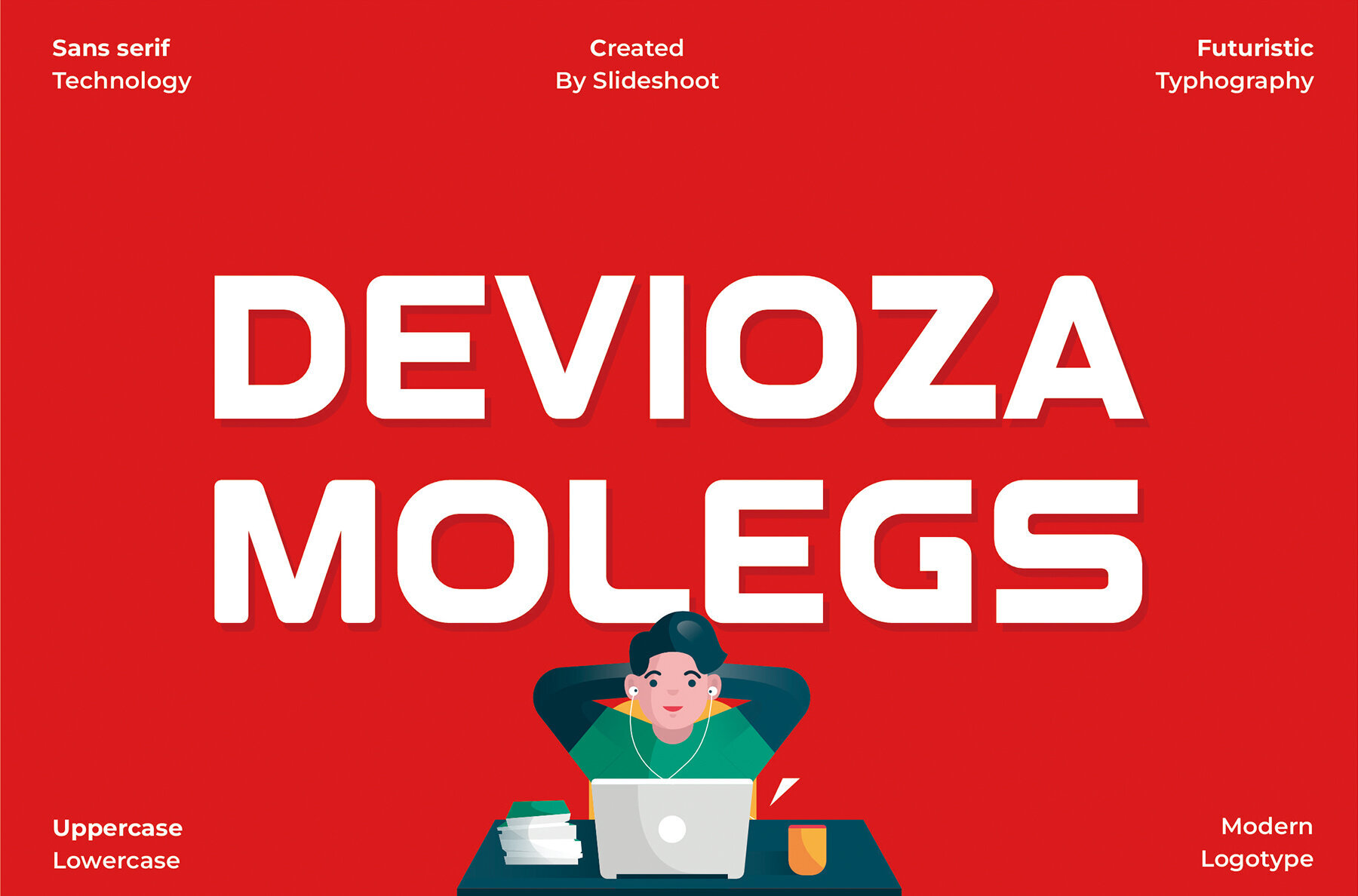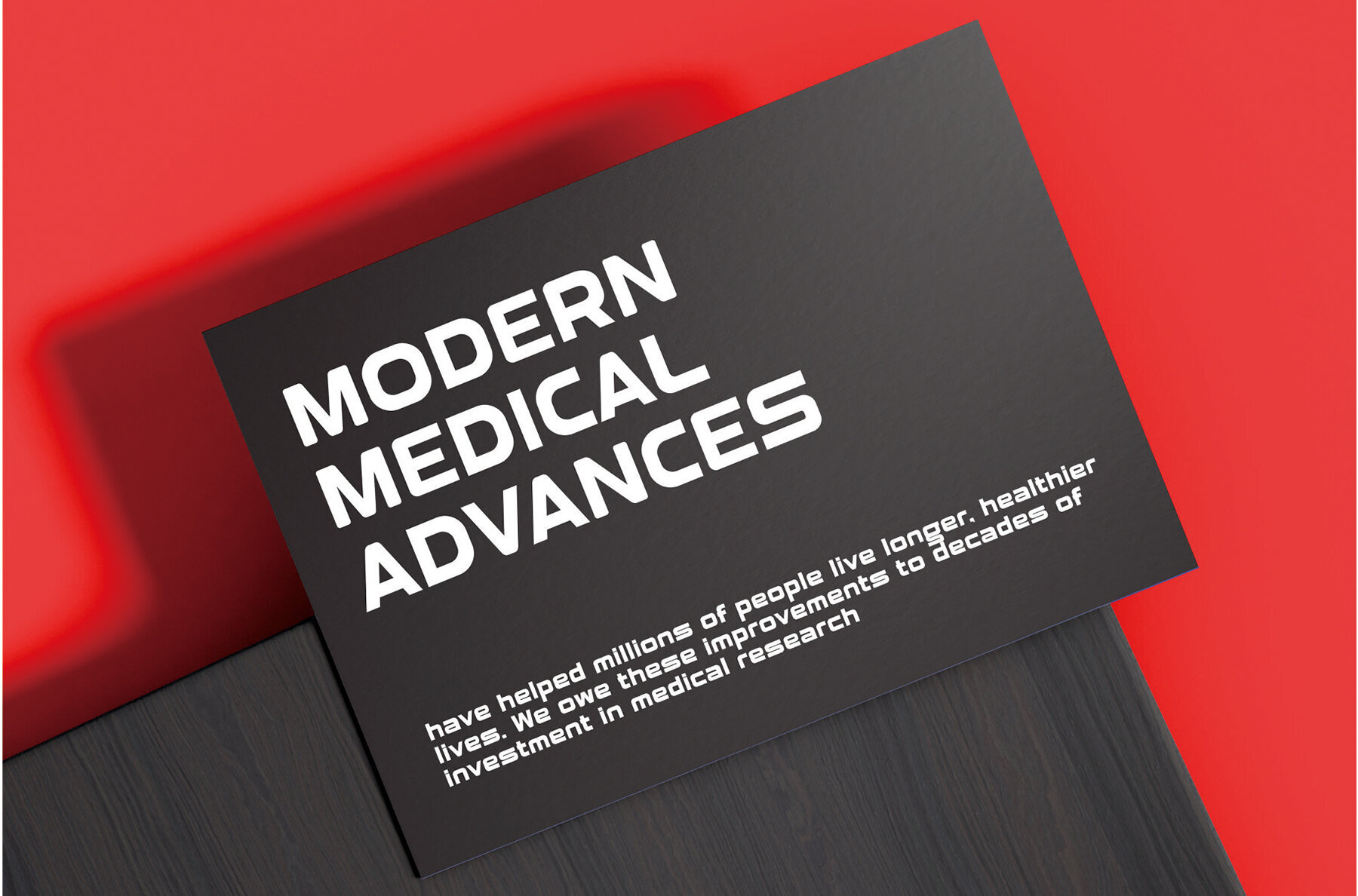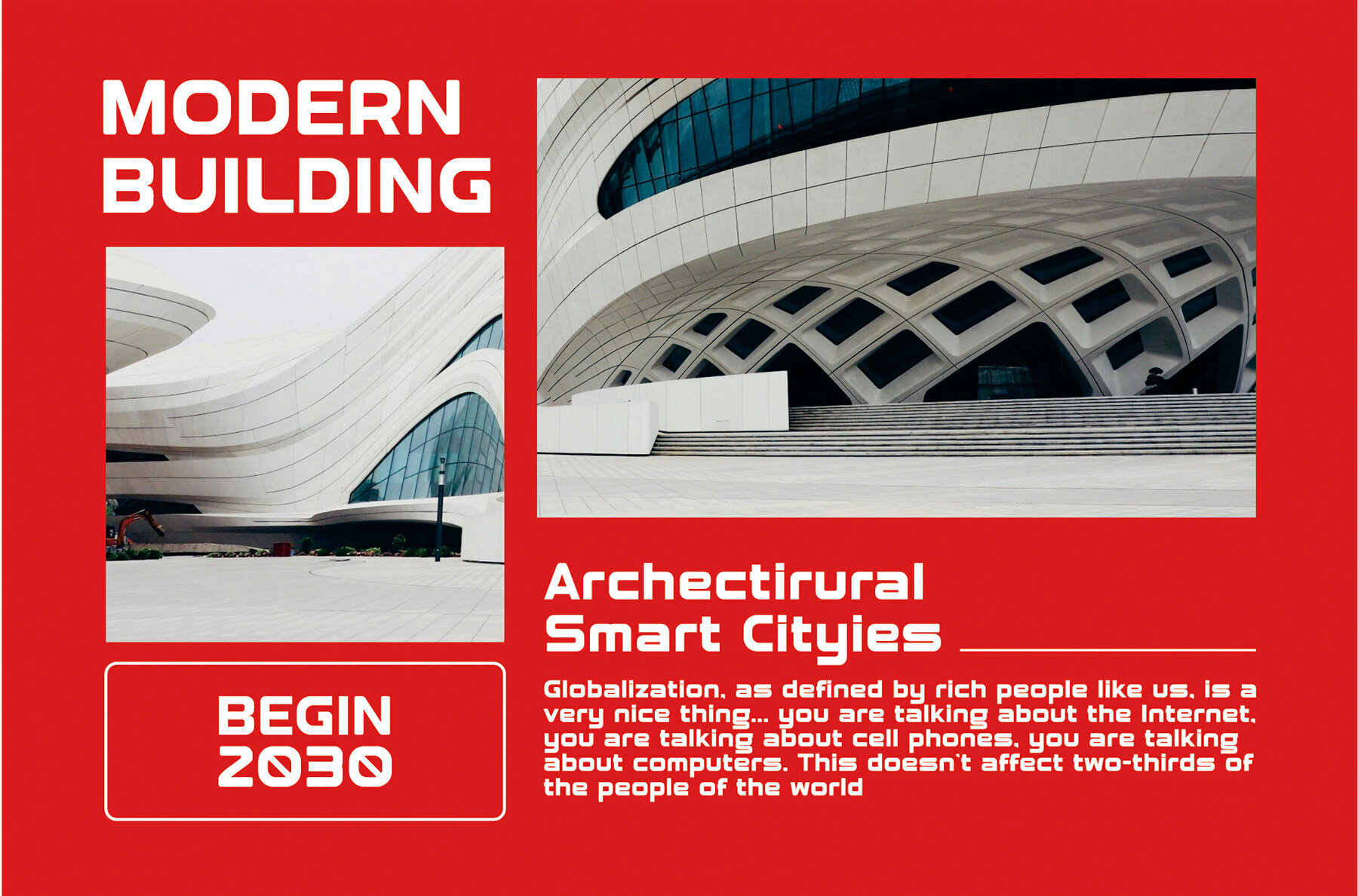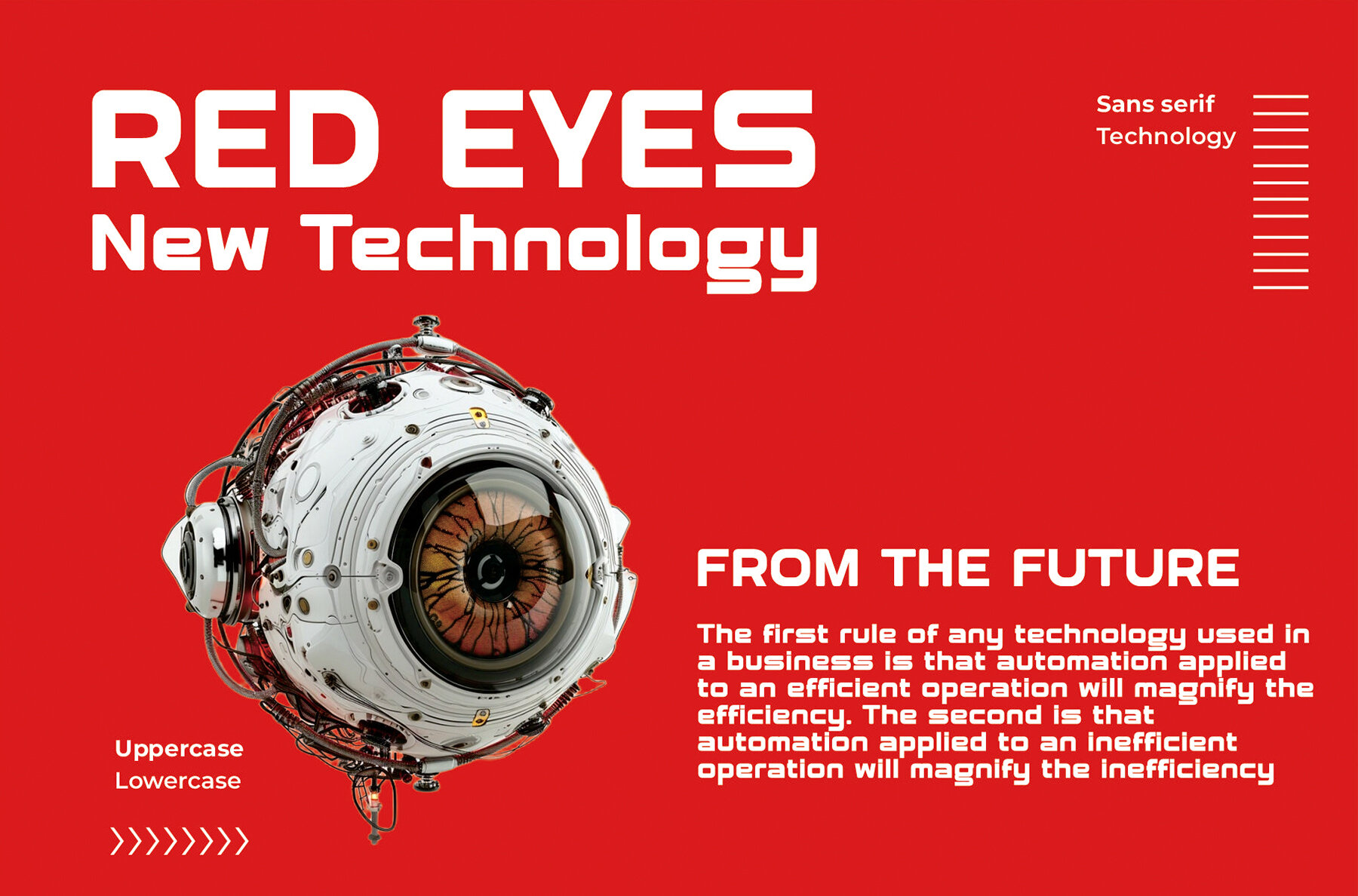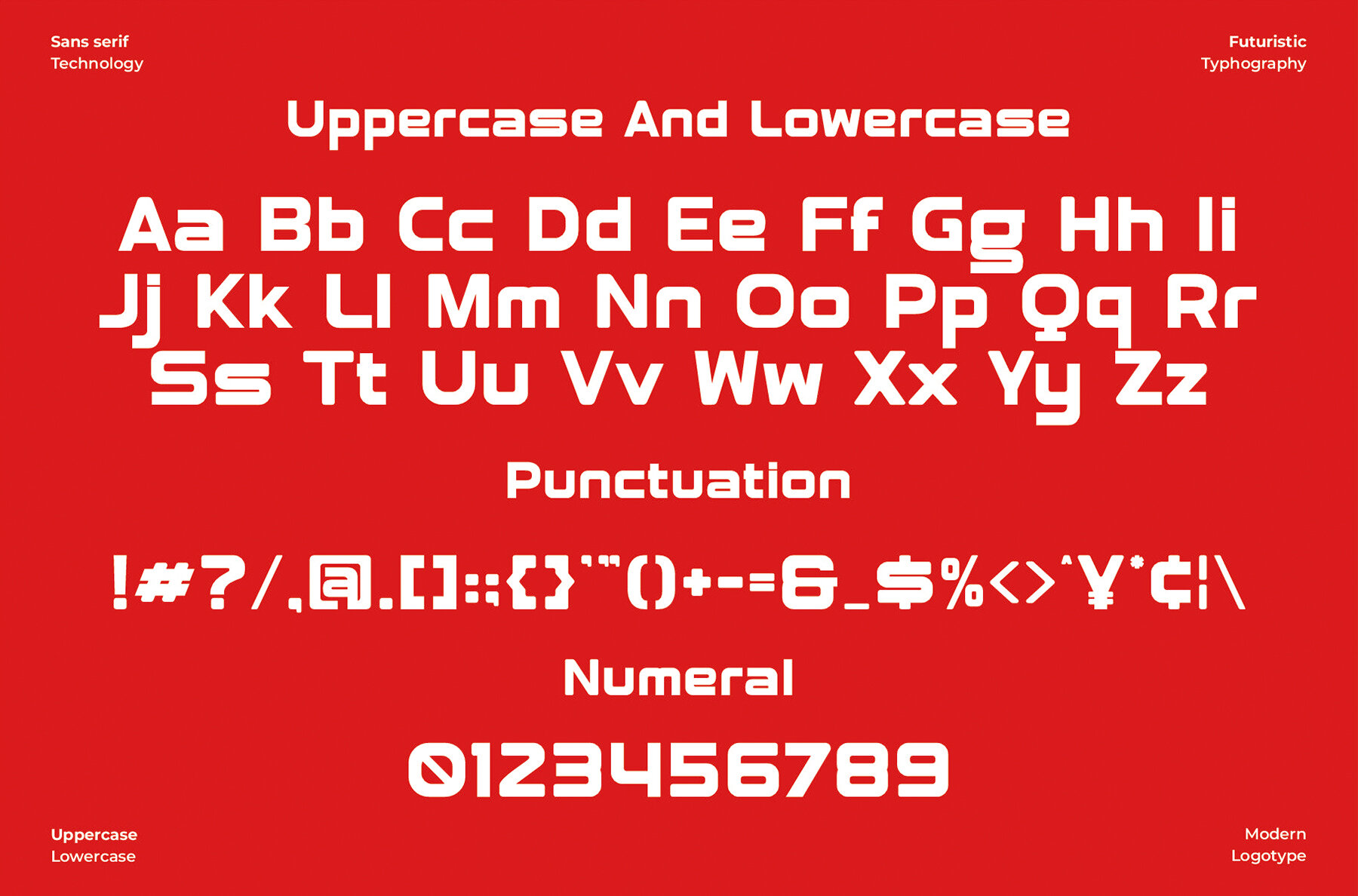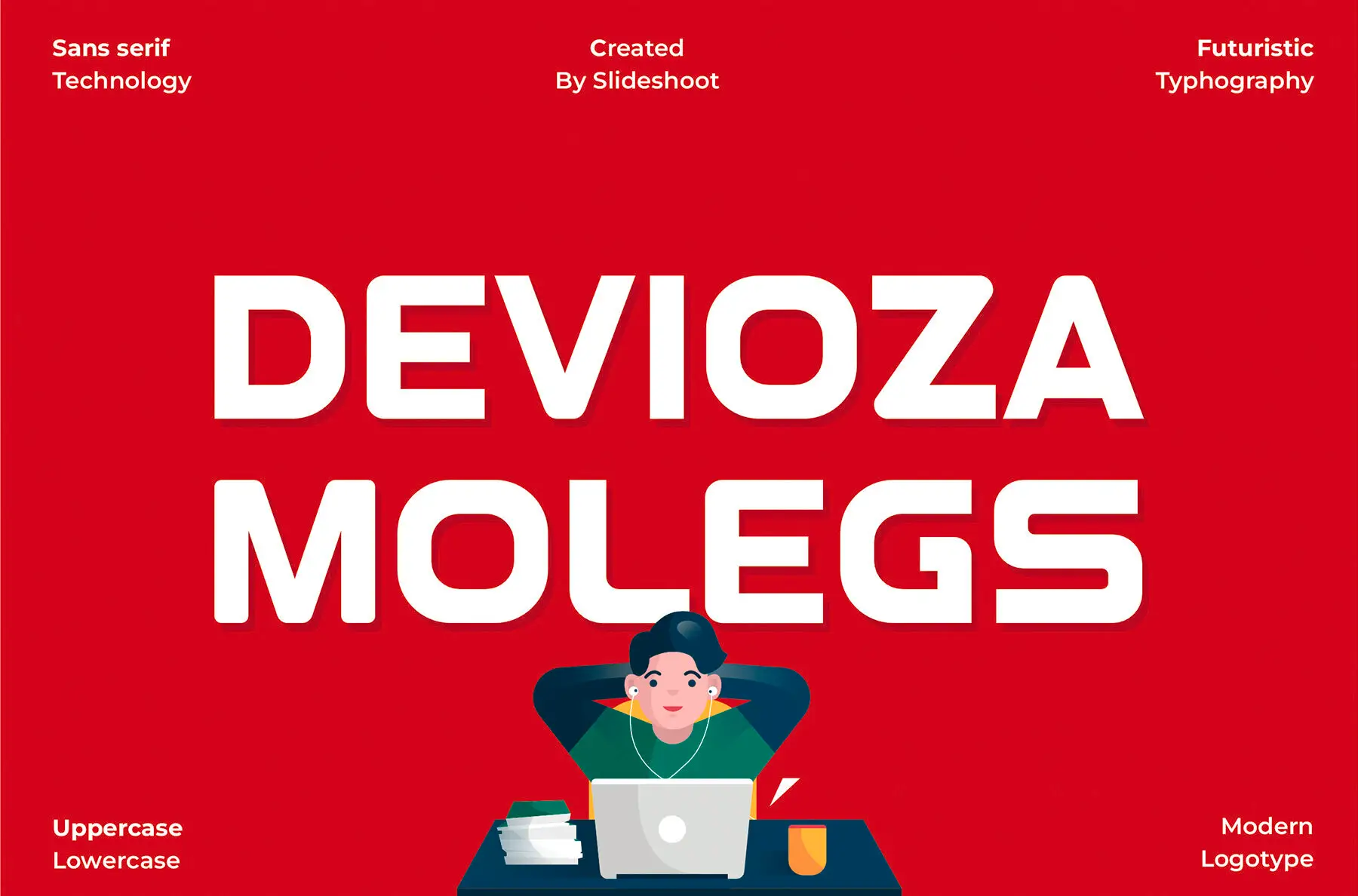
Davioza Molegs Font
Davioza Molegs
Discover the charm of Davioza Molegs—a bold, modern serif font with a unique wood-themed character. This trendy, bouncy display font is as cute as it is distinctive, making it an excellent choice for various creative projects. Whether designing invitation cards, company logos, movie titles, business cards, book titles, or brand names, Davioza Molegs brings a touch of sophistication and playfulness to any design endeavor.Davioza Molegs: A Bold Modern Serif Font